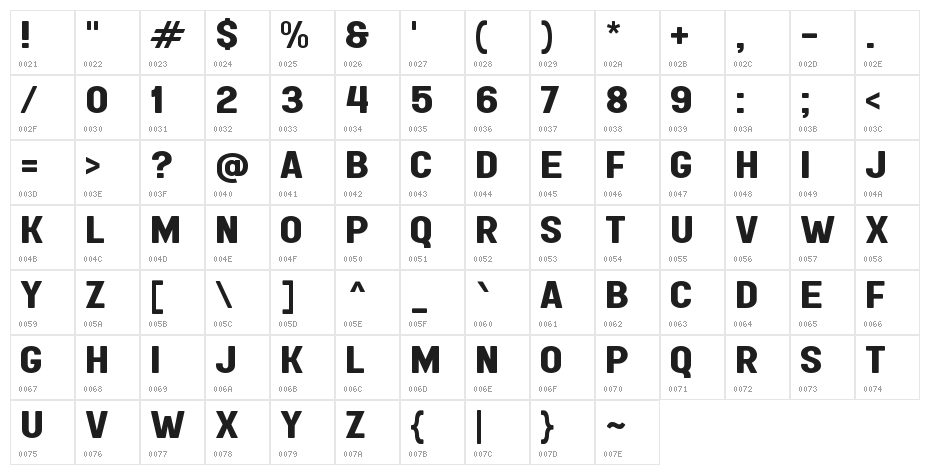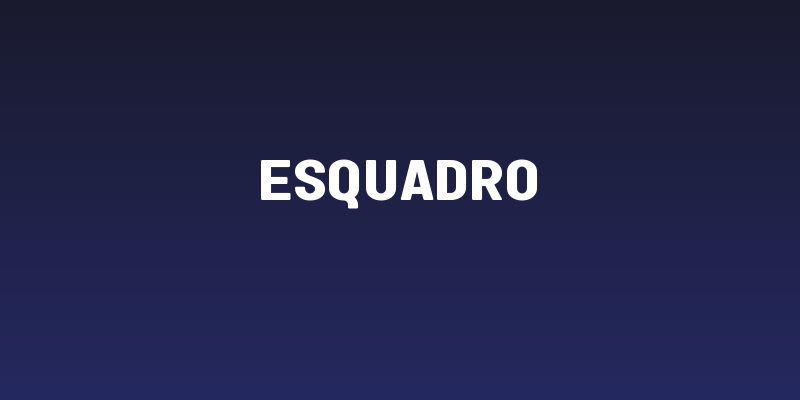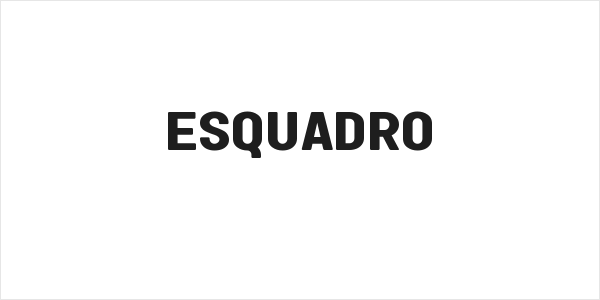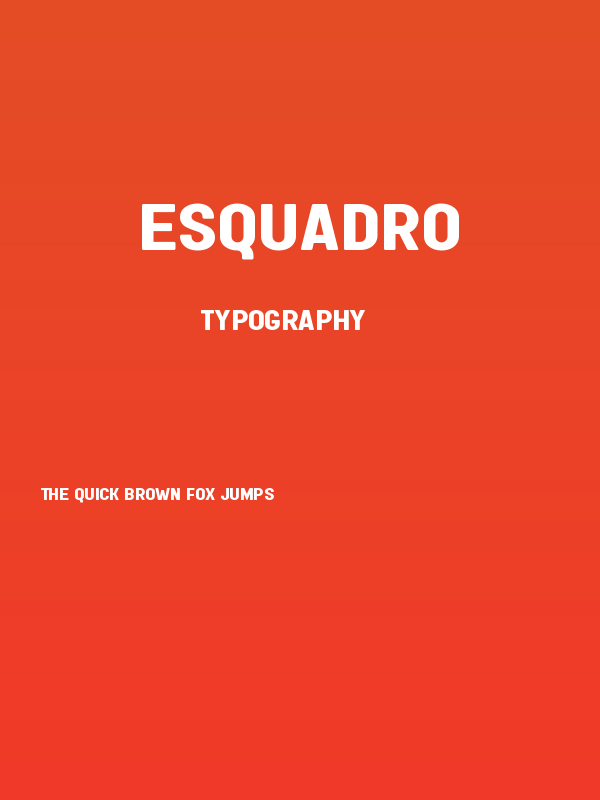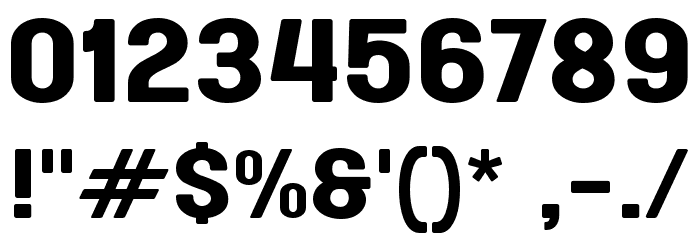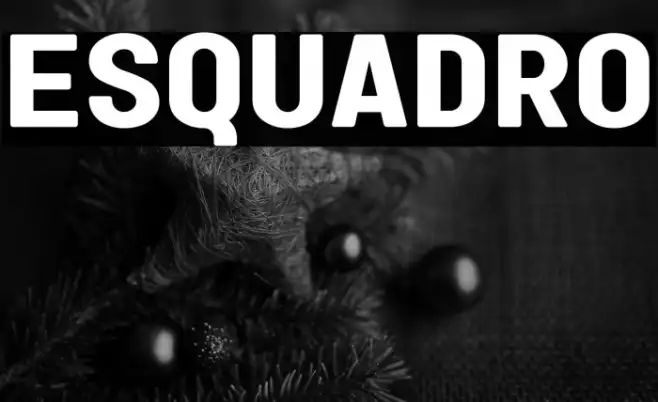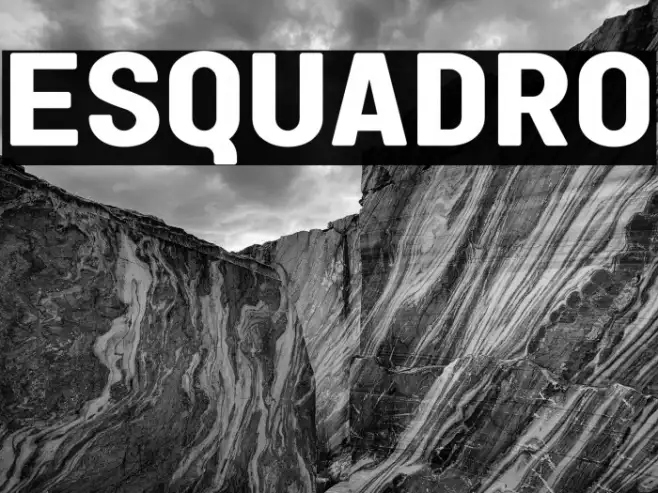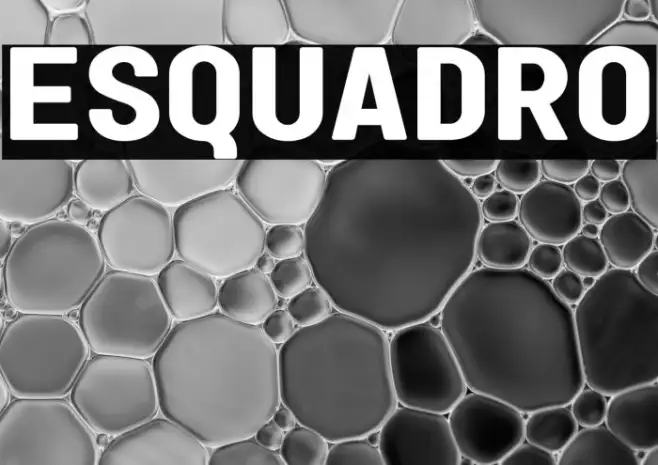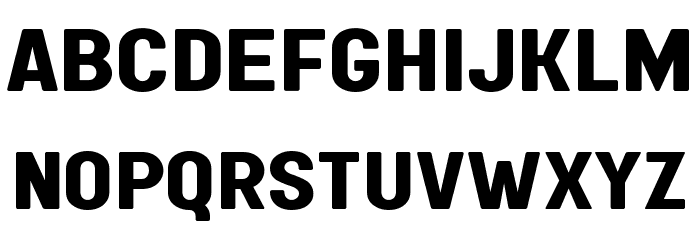
Esquadro Font
Esquadro Description
This font features bold, geometric letterforms with a strong presence. The characters are uniformly thick, providing a consistent and robust appearance. The uppercase letters are particularly striking, with clean lines and a modern aesthetic. The numbers and special characters maintain the same boldness, ensuring readability and impact. The overall design is straightforward yet powerful, making it suitable for attention-grabbing headlines and branding materials.